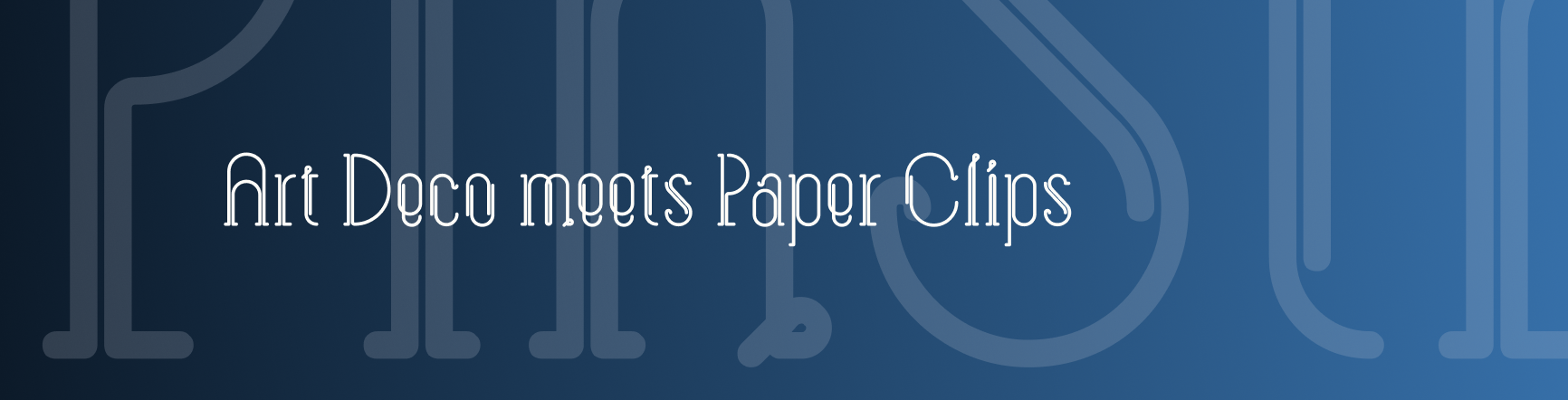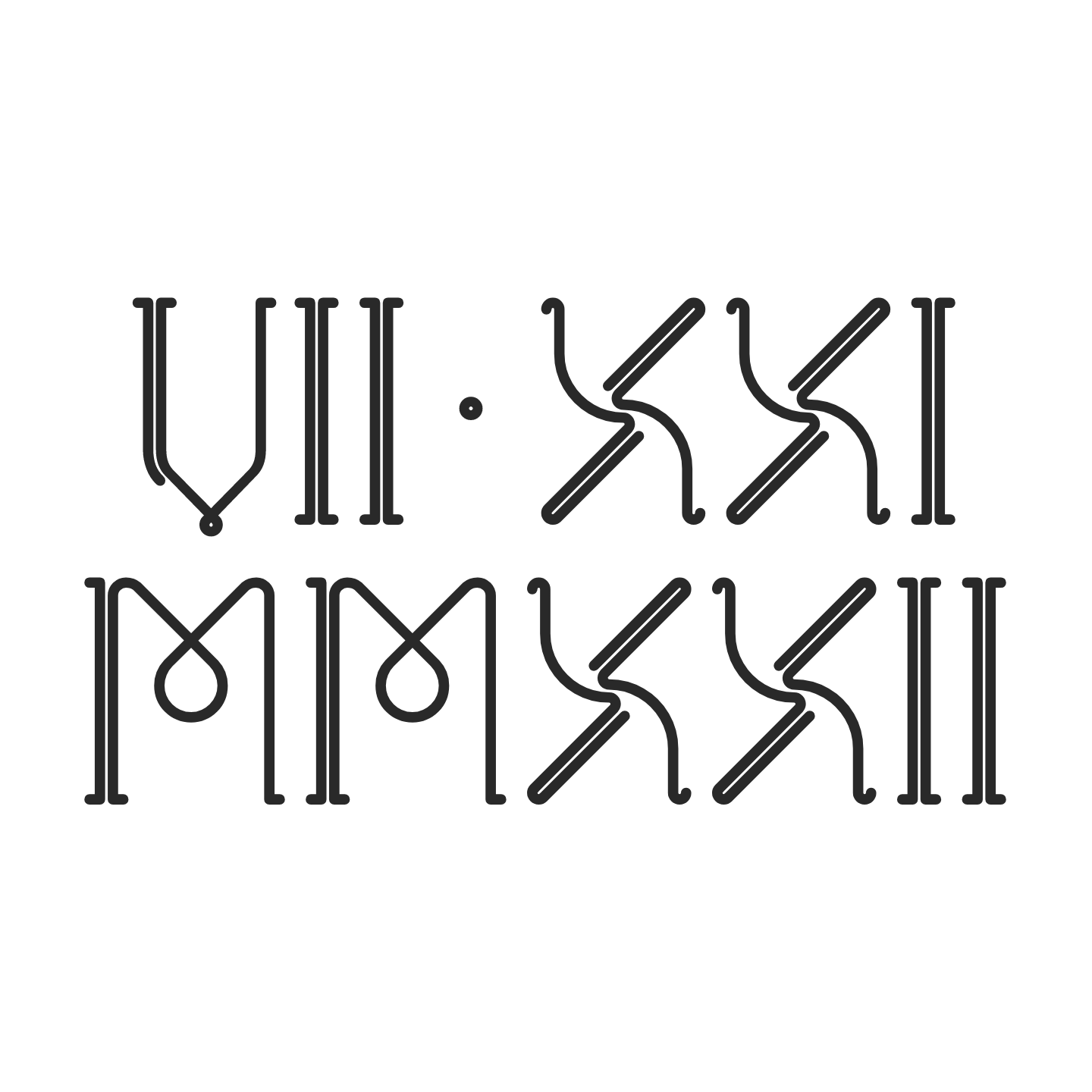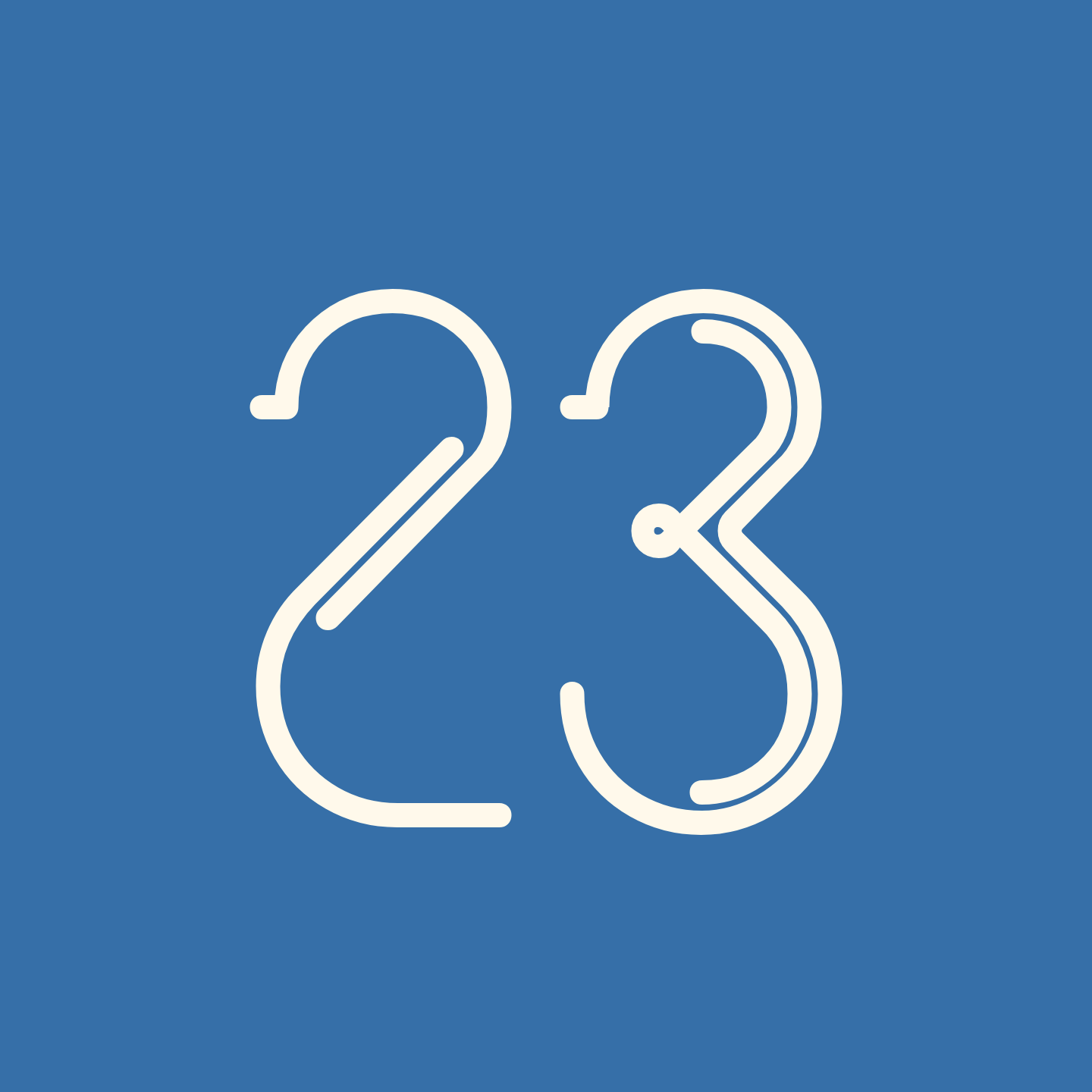
Paper Clip is a display typeface that is inspired by the design language and rhythm of paper clips. With a little touch of the Art Deco, letterforms are imagined as bent wire creating rigid parallels and tight circles.